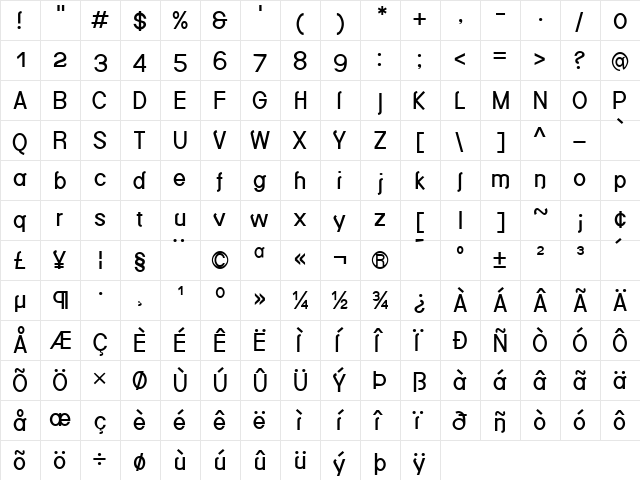
Bedizen Regular
Design Context for Bedizen Typeface
Bedizen offers clean, dependable letterforms without strong stylistic allegiance, making it a practical choice for designers who need flexibility.